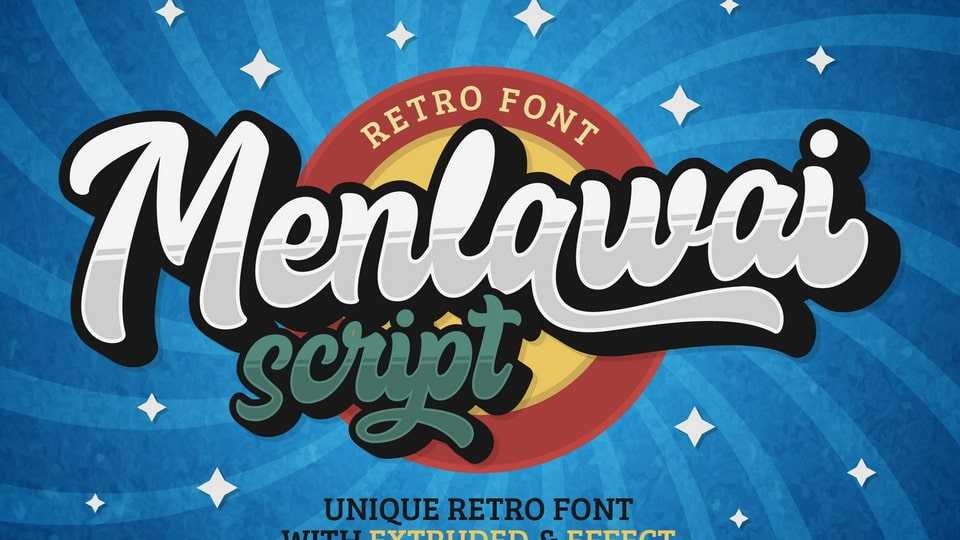
Download Menlawai font, a gorgeous and bold handwritten typeface, crafted to give your headlines and logotype projects a retro touch. Menlawai font reads as strong, confident, and dynamic and can add tons of nostalgic character to your designs.